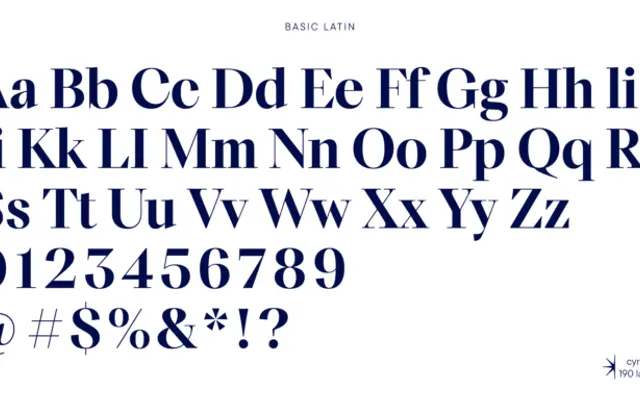
TT Livret
TypeType · Yulia Gonina, Anna Tikhonova, Yuriy Nakonechny, Ivan Gladkikh · 2022
A 32-style serif family from TypeType with three optical subfamilies covering text, subheading and display work, released in 2022.
The family splits into Text, Subhead and Display subfamilies, each tuned for its intended size range: the Text cuts use open apertures, loose spacing and oval rounds for calm readability, while the Display cuts close the apertures, tighten the spacing and push rounds toward perfect circles for expressive impact. Thirty styles plus two variable fonts cover Light through Black with matching italics, and each style contains 1031 glyphs with 26 OpenType features including oldstyle figures, small caps and extensive Cyrillic alternates. Suited to books, magazines, posters and brand identity work requiring a single family to span both body copy and headlines.
A high-contrast modern serif with optical size subfamilies; the display cuts favour tight spacing and near-circular rounds while the text cuts use open apertures and static proportions, placing it broadly in the transitional-to-modern serif range.